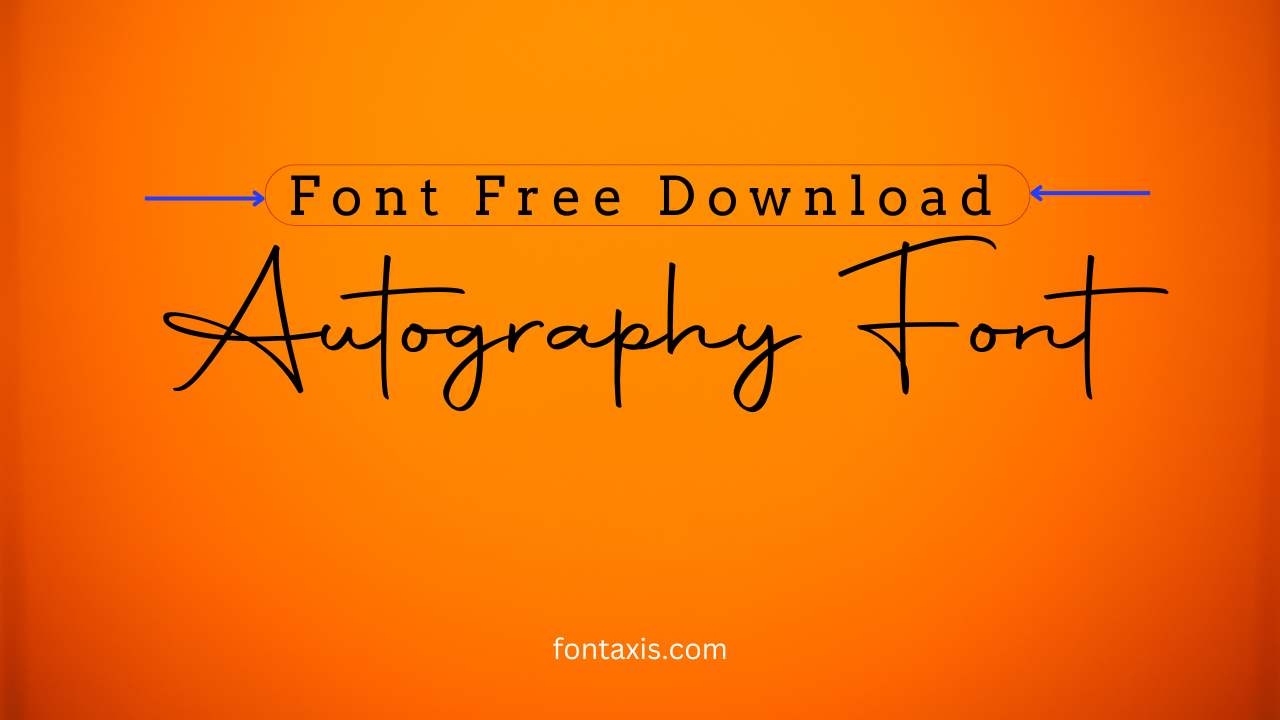
Autograph Font is an elegant and sophisticated typeface designed to mimic the fluidity of a handwritten signature.
This font captures the essence of personal touch, making it ideal for projects that require a unique, handwritten feel. With its smooth curves and calligraphic style, the Autograph Font is perfect for various design applications, particularly those involving branding, logos, and creative signatures.
Autograph Font Information
| Name | Autograph Font |
| Style | Script |
| Designer | Creativeletter |
| Type | Signature Script |
Autograph Font Family Includes
- Autograph Regular
- Autograph Italic
- Autograph Bold
- Autograph Bold Italic
- Autograph Light
- Autograph Light Italic
- Autograph Semi-Bold
- Autograph Semi-Bold Italic
- Autograph Extra Light
- Autograph Extra Light Italic
- Autograph Medium
- Autograph Medium Italic
- Autograph Extra Bold
- Autograph Extra Bold Italic
- Autograph Swash Regular
- Autograph Swash Italic
- Autograph Alternate Regular
- Autograph Alternate Italic
- Autograph Font Family by Mans Greback
Designers widely use the Autograph Font in various contexts where a personal, handwritten touch is desired. Its smooth, calligraphic style makes it a popular choice for:
- Logotypes and Branding
- Digital Signatures
- Business Cards
- Wedding Invitations
- Cosmetics Posters
- Fashion Magazines
- Book Covers
- Movie Titles
- Quotes Designs
- Social Media Graphics
- Advertisements
- Product Packaging
- Labels
- Photography Watermarks
- Stationery
1. Why Is Autograph Font Popular In Branding?
Autograph Font’s elegant and personalized design makes it ideal for branding, especially when a handwritten, signature-like appearance is needed. Its versatility allows designers to use it across various mediums, enhancing the brand’s identity.
2. When Was The Autograph Font Developed?
Creativeletter released the Autograph Font on July 10, 2021, designing it to bring a touch of sophistication and elegance to modern design projects.
3. What Free Font Is Closest To Autograph Font?
Fonts like Signatura Monoline and The Braggest Script are relatively close alternatives to Autograph Font, offering similar elegant, handwritten styles.